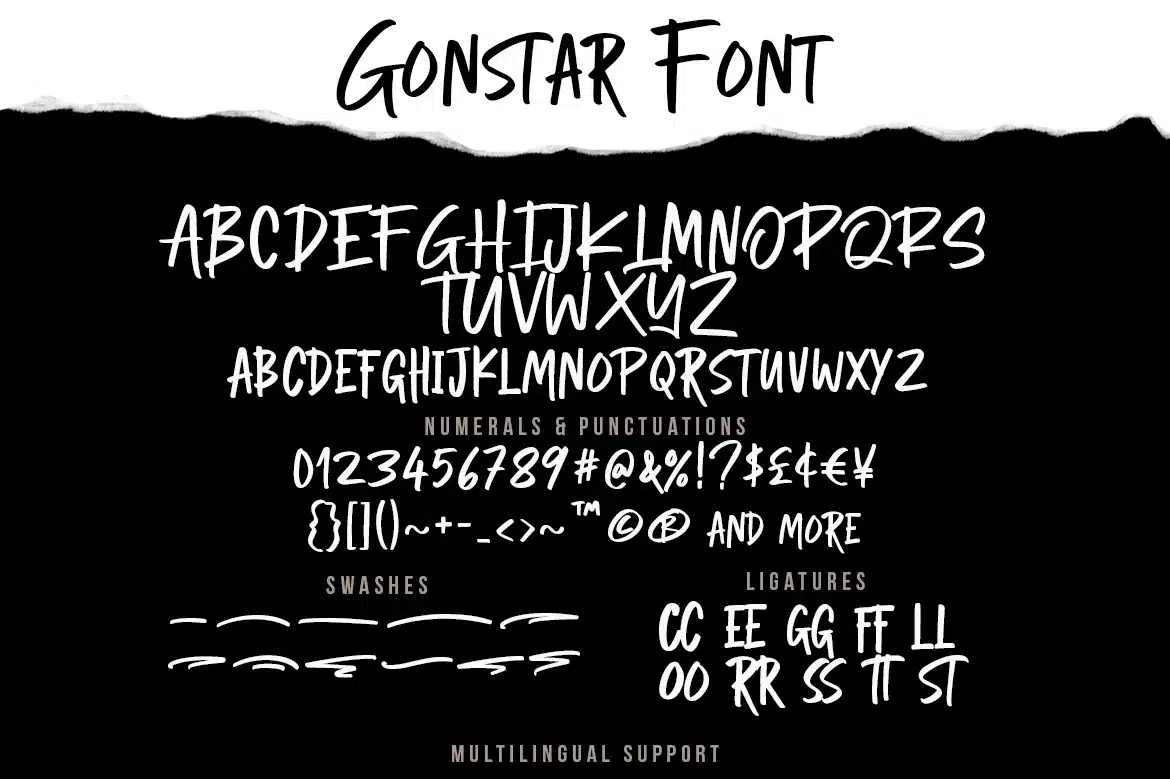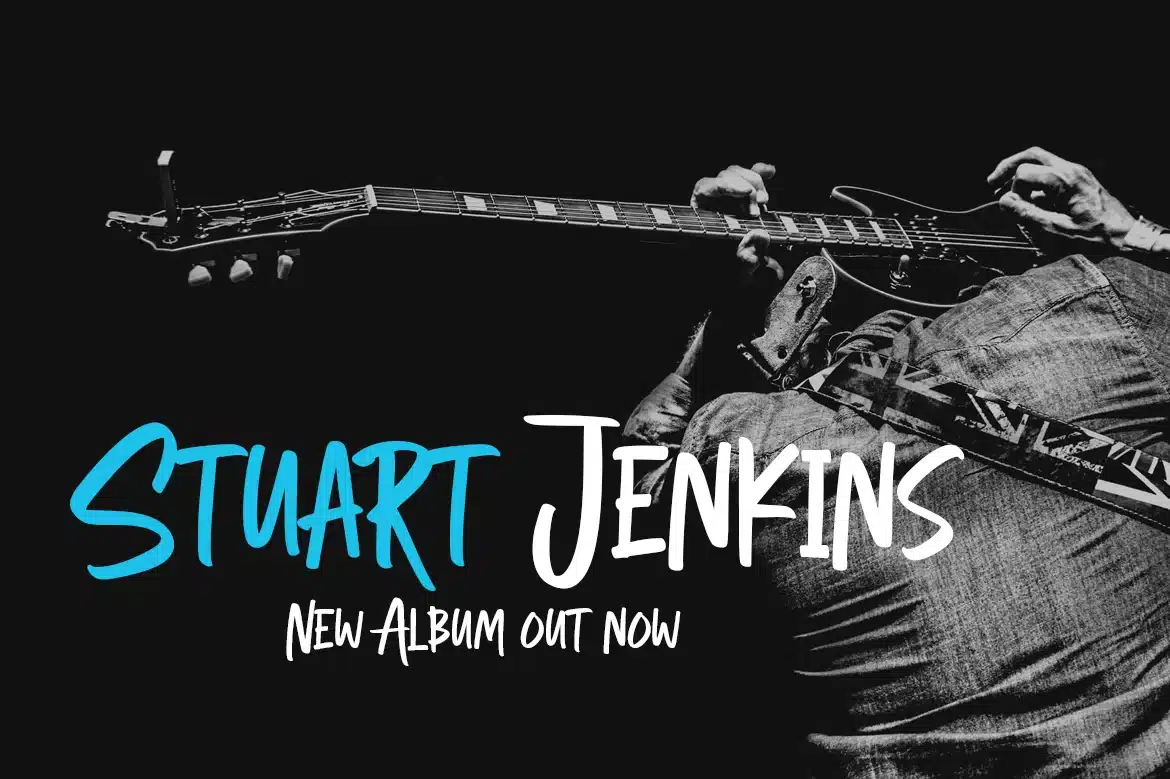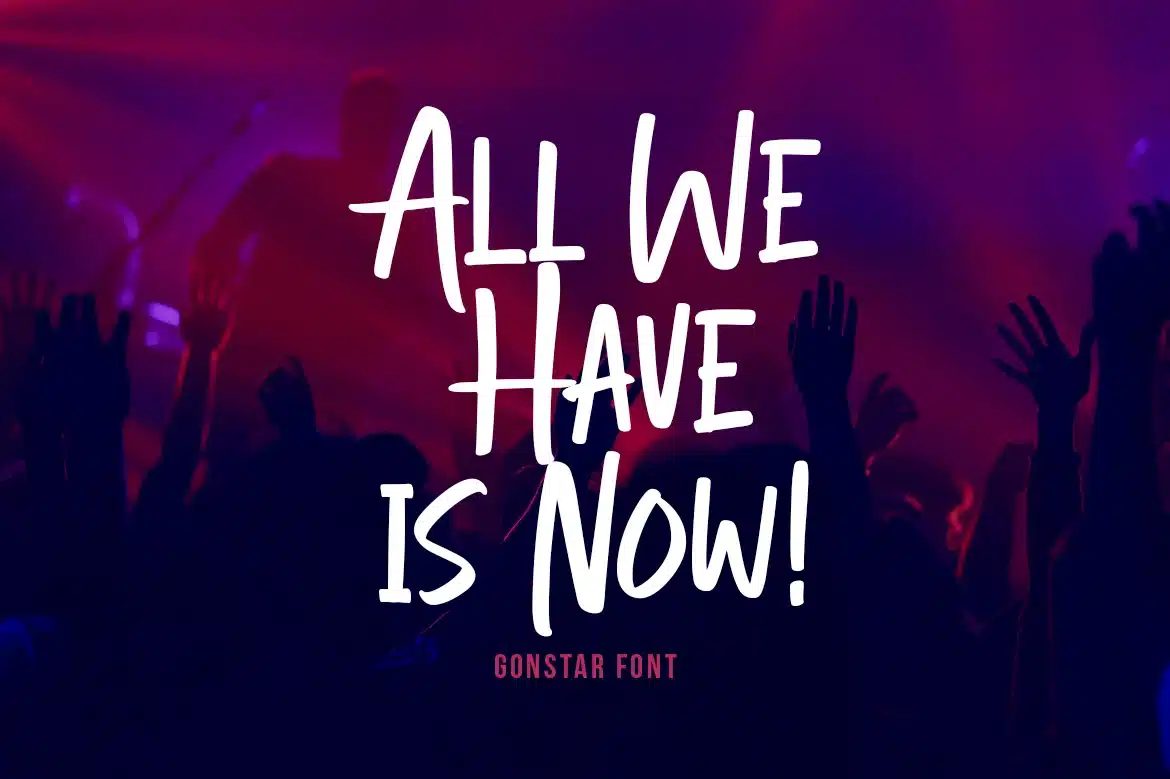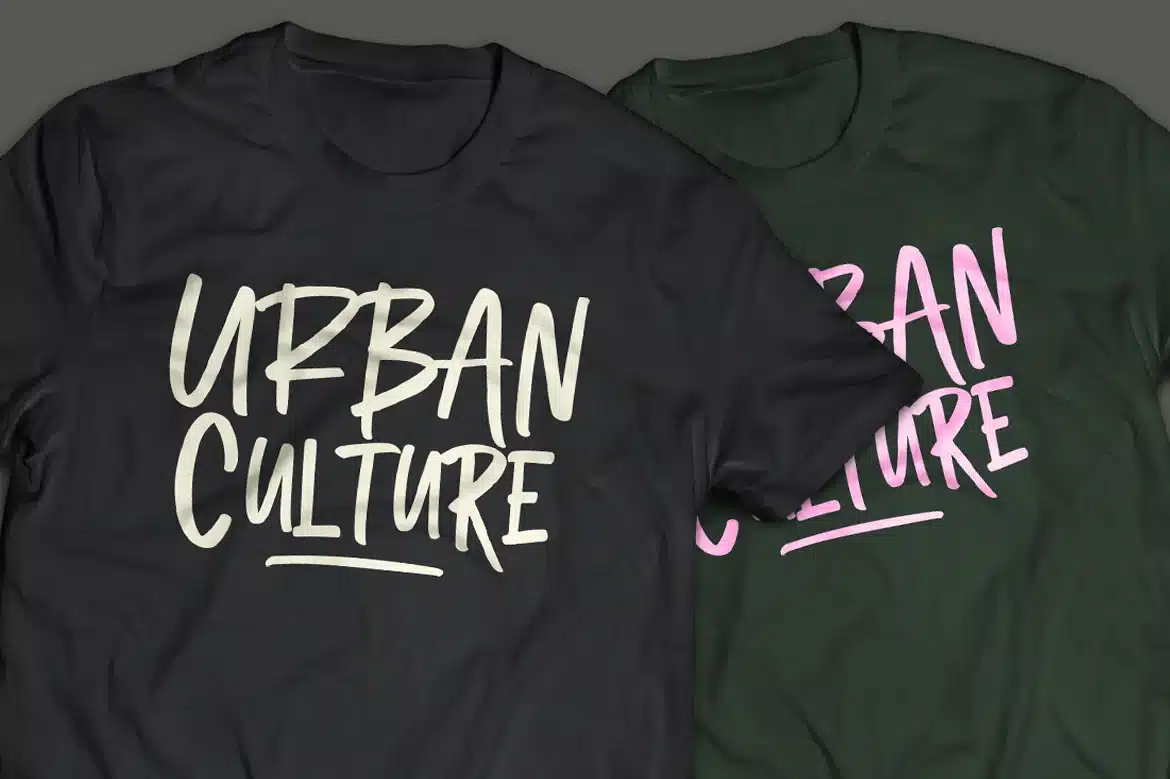
Gonstar Font
Gonstar is a font with natural dry brush strokes. You can use and enjoy Gonstar for anything projects, for promotional material, handwritten quotes, product packaging, merchandise, and branding projects.
And this font perfect for logo, branding, poster, photography, title, social media post, ad banner, book cover, product packaging, handwritten quotes, greeting cards, and advertising. You can create more easily with uppercase, lowercase and swash combination make it as if you wrote it yourself.
All fonts are capitals containing upper & lowercase characters, numerals, multilingual support and a large range of punctuation. With OTF, TTF, WOFF, and WOFF2 format.